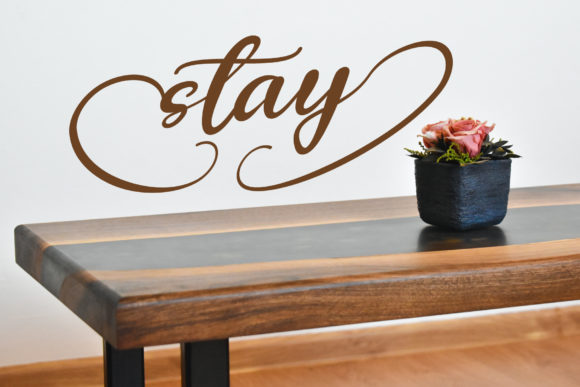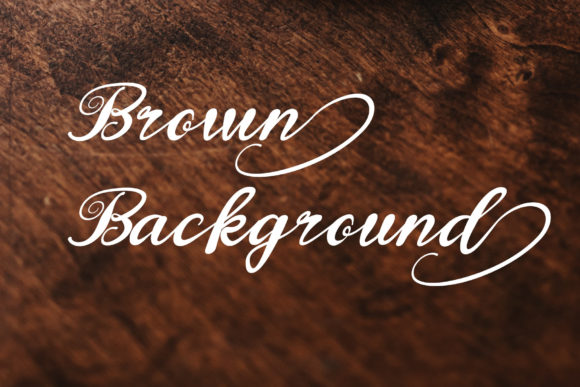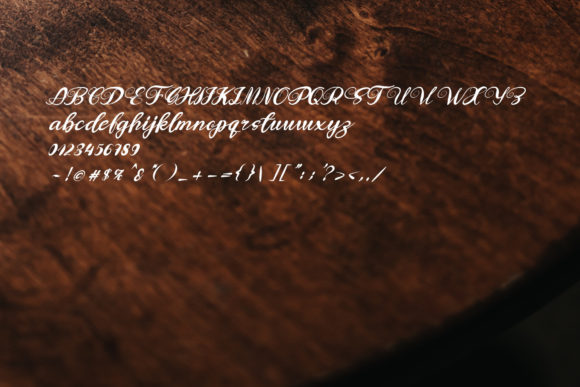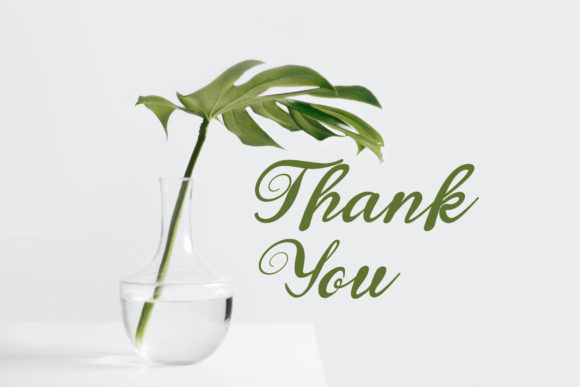
Introduction to Latte Font
There’s nothing quite like the thrill of a late-night design session, the coffee is brewing, and the ideas are flowing. You’re working on a project that requires a touch of elegance and sophistication, and you need a font that can deliver. This is where the Latte Font comes in – a chic, refined script font that’s perfect for adding a dash of luxury to your designs.
With its stylish alternates and ligatures, the Latte Font is a design resource that’s hard to resist. Whether you’re working on a high-end branding project or a creative campaign, this font is sure to elevate your work. Plus, with PUA encoding, you can access all the glyphs and swashes with ease, making it a valuable addition to any designer’s toolkit.
Honest Review: Latte Font
As a designer, I’m always on the lookout for high-quality design resources to elevate my creative projects. Recently, I stumbled upon Latte Font, a free download that caught my attention. Here’s my honest review.
- ✨ Beautifully designed, with a unique and modern aesthetic that’s perfect for modern design projects.
- ✨ Offers a transparent background, making it easy to integrate into various design elements.
- ✨ Suitable for a wide range of creative projects, from web design to print materials.
- ⚠️ Limited customization options, which may limit its versatility for more complex design projects.
- ⚠️ May not be suitable for designs requiring a bold, playful feel, as its modern aesthetic can come across as quite minimalist.
Overall, I’d say Latte Font is a solid design resource for designers looking for a high-quality, modern font to add some sophistication to their creative projects. While it may have some limitations, its beauty and versatility make it a great choice for a wide range of designs.
Latte Font
What is Latte Font?
Latte Font is a free design resource offering high-quality fonts with transparent backgrounds, perfect for creative projects that demand visual appeal.
Tips for Getting the Most Out of Latte Font
1. Experiment with different font styles and sizes to achieve the desired visual effect.
2. Combine Latte Font with other design elements to create a unique and eye-catching design.
Common Use Cases for Latte Font
1. Branding and logo design
2. Social media graphics and advertising
3. Brochures and flyers